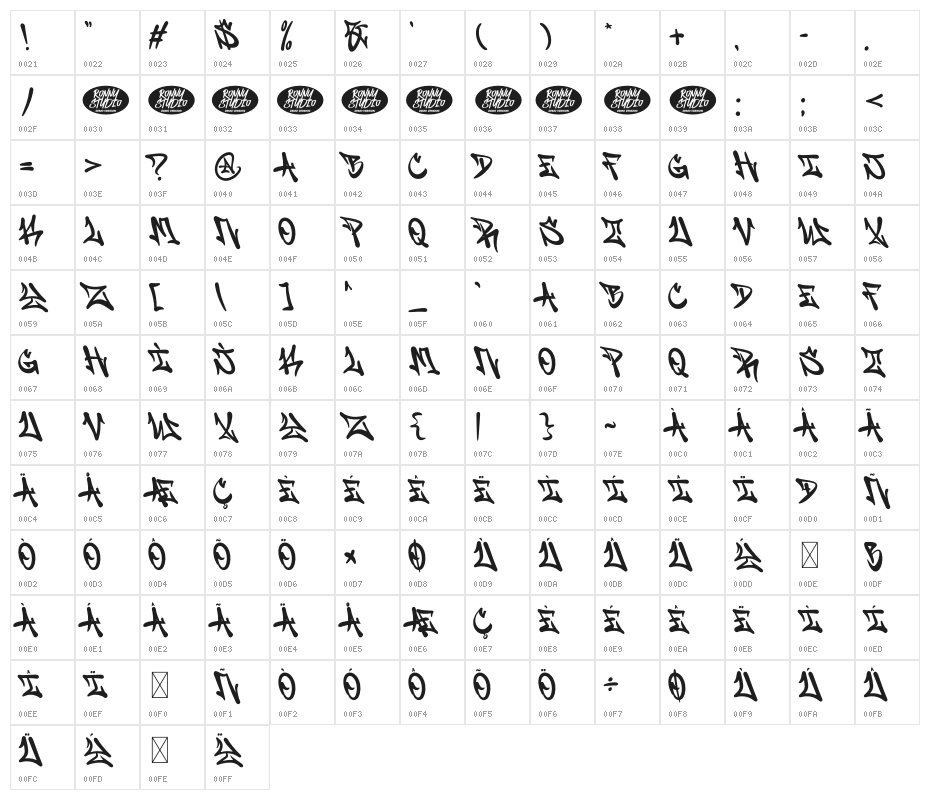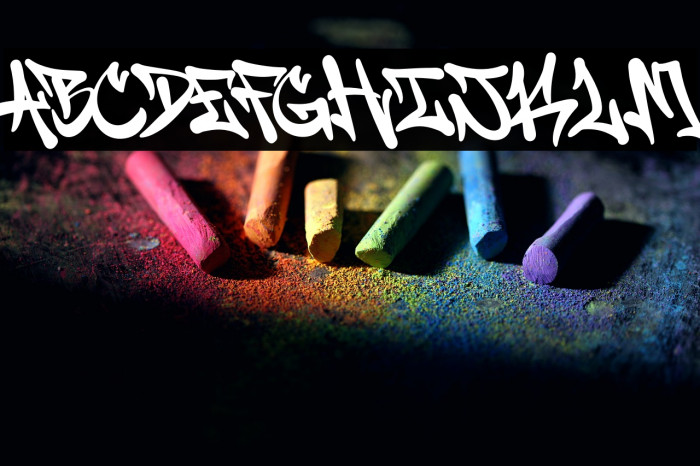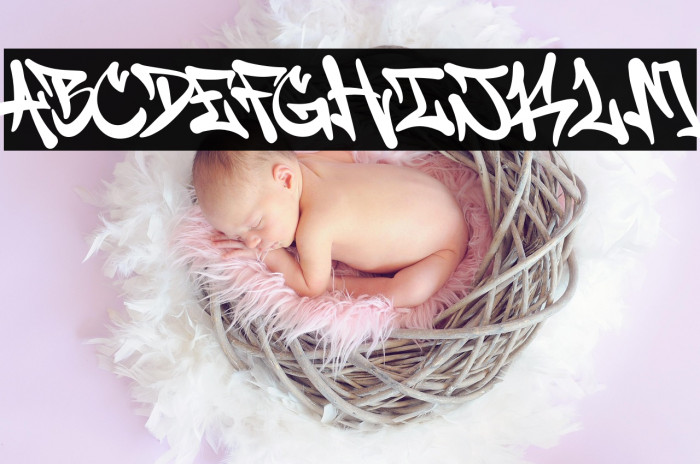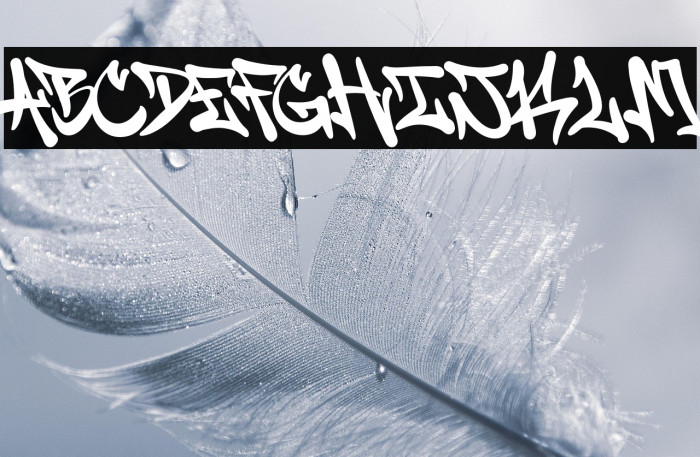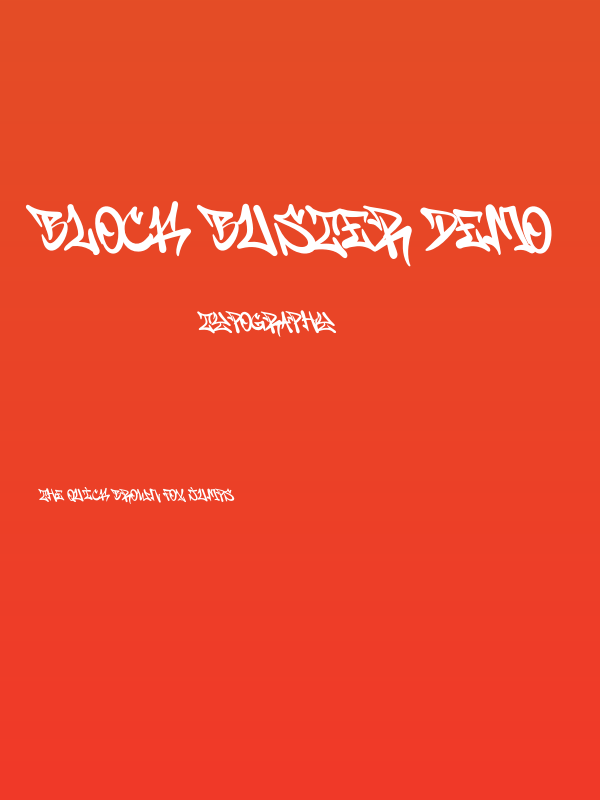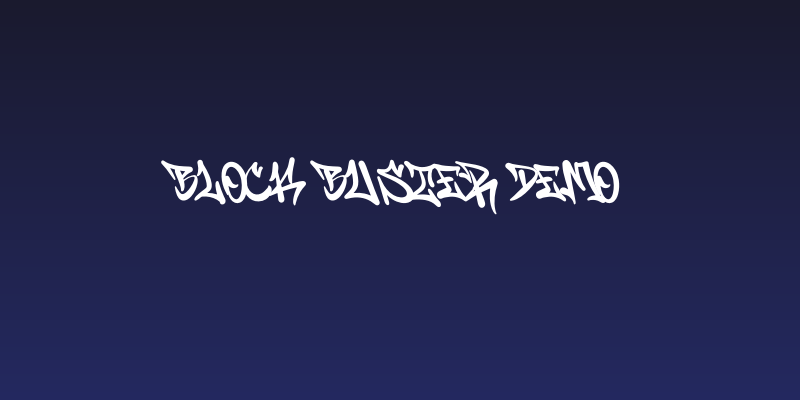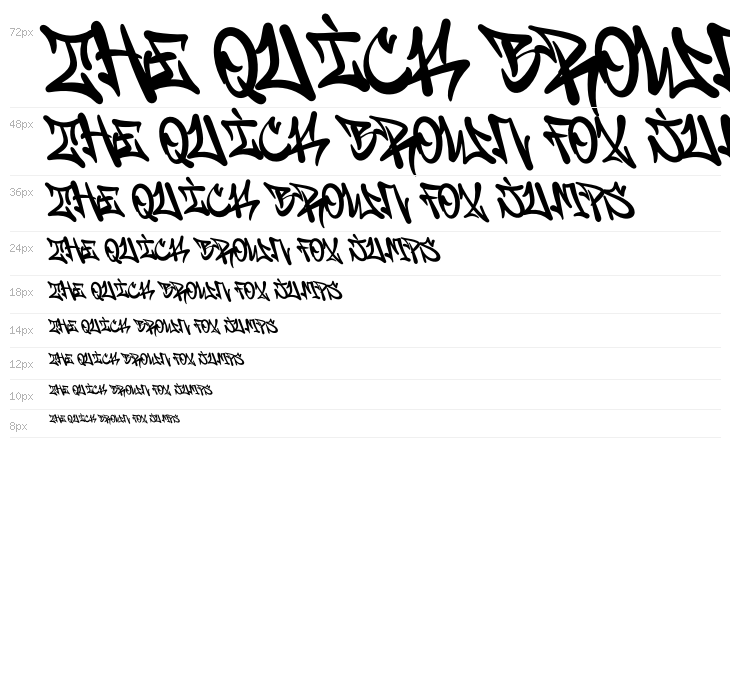
Block Buster DEMO Font
Block Buster DEMO Description
A bold, graffiti-inspired display font with sharp, angular strokes and exaggerated letterforms. The characters have a hand-drawn, urban aesthetic with dynamic movement and irregular shapes, evoking street art and hip-hop culture.
Fonts by Ronny Studio
| Overall Style | Decorative, Urban, Graffiti |
| Use Case | Headlines, Logos, Posters, Merchandise |
| Proposed Projects | Streetwear branding, album covers, event posters, skateboarding graphics, urban art projects. |